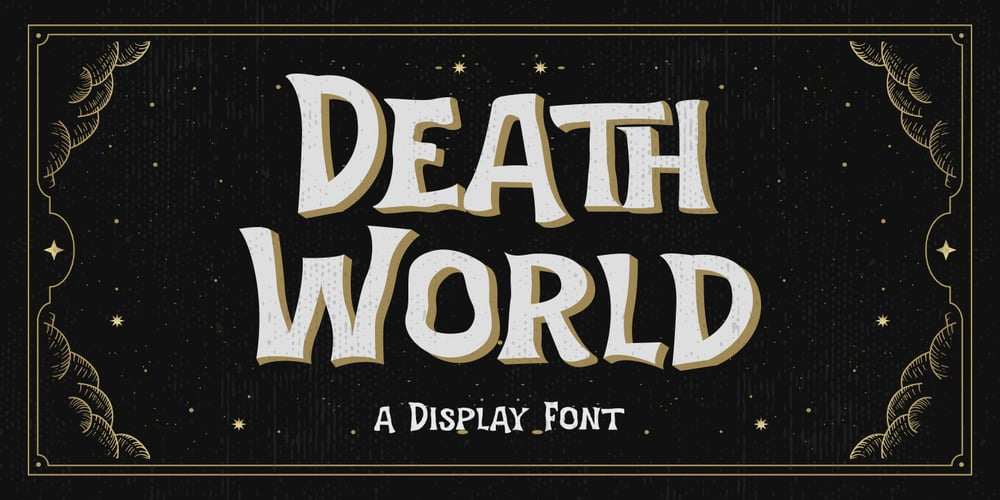
Death World Font Family was designed by Hilmius Akbar and published by Typefactory. Death World contains 1 styles and family package options. Death World is a fancy display font.It embodies playfulness and authenticity and is the perfect choice for any children activity, fantasy, game font, party invitation, or school project.Add this fun display font to your designs and notice how it makes them come alive!